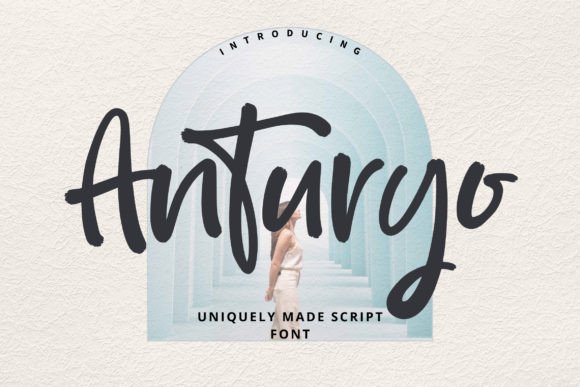
Behold Anturyo, the font that captivates with its chic simplicity and modern flair. Experience the seamless fusion of elegance and innovation as this script font adorns your creations. Embrace the allure of Anturyo, a masterpiece crafted by the renowned foundry Vunira, and redefine your design horizons.
Anturyo's sleek lines and sharp edges evoke a sense of sophistication that will elevate any project. Its minimalist design exudes a clean and contemporary aesthetic, perfect for those seeking a touch of elegance without overpowering their designs. The letters flow together effortlessly, creating a harmonious rhythm that captivates the eye.
Immerse yourself in a world of creative possibilities with Anturyo. Whether you're crafting logos, designing invitations, or creating editorial masterpieces, this versatile font is your perfect companion. Its adaptability shines in branding projects, where it adds a touch of modernity and distinction to your brand identity. Unleash your creativity in editorial design, as Anturyo's clean lines and elegant curves bring your words to life with sophistication.
Envision your logo, the face of your brand, adorned with Anturyo's timeless beauty. Its sharp edges and minimalist design create a striking and memorable impression, leaving a lasting impact on your audience. Elevate your branding efforts with Anturyo, the font that embodies modern elegance and timeless appeal.
Dive into the realm of invitation design with Anturyo as your artistic guide. Its graceful curves and chic simplicity add a touch of elegance to any occasion. Create invitations that reflect the significance of your event, showcasing the beauty of Anturyo's design. Whether it's a wedding, a corporate gathering, or a special celebration, Anturyo's presence will leave an unforgettable impression.
Unlock the power of Anturyo in editorial design and captivate your readers with its refined charm. Its clean lines and minimalist aesthetic provide a seamless backdrop for your written content, allowing your words to take center stage. Design magazine layouts, brochures, and reports that exude professionalism and sophistication. With Anturyo, your editorial designs will leave a lasting impression, engaging readers with its understated elegance.